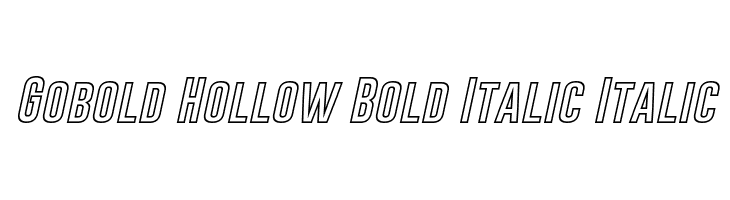
A bold, italic, and condensed font with a modern and dynamic style.
A bold, italic font with a sleek, modern design and consistent stroke weight.
A bold, italicized font with a dynamic and modern appearance.
A tall, narrow, and thin font with a modern and sleek design.
A sleek, modern, and italicized font with elongated, condensed characters.
A sleek, italic font with tall, narrow characters and high contrast, ideal for modern designs.
A bold, hollow font with a modern geometric style.
A bold, hollow font with geometric lines and a modern, structured appearance.
A bold, hollow, italic font with a modern and dynamic style.
Bold, hollow, italic font with a modern and dynamic style.